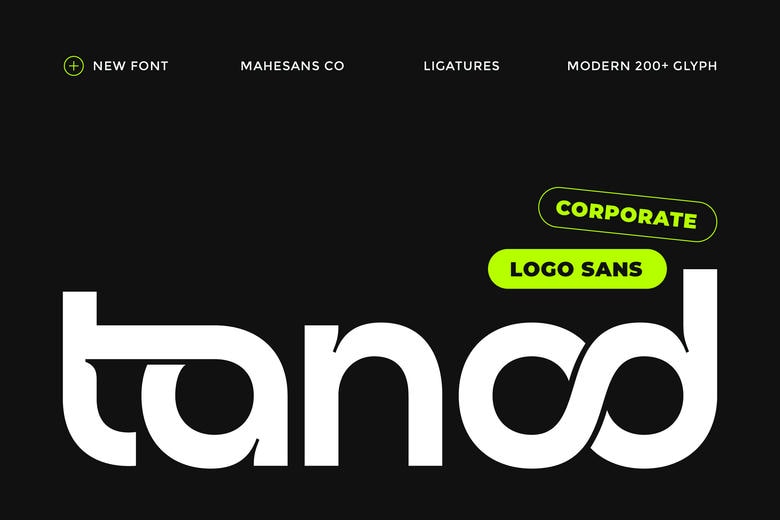
Tanod Font
Tanod is a modern sans serif font created to give logos an upscale look with minimal effort. Tanod features a clean geometric design with unique details, offering both professionalism and a distinctive style.
Its sharp, confident, and easy-to-read letterforms make it ideal for branding, logotypes, tech startups, and modern businesses. This font stands out from typical sans serifs. It grabs attention at large sizes and stays clear at small ones, just as a logo font should.
Tanod Sans Serif Font